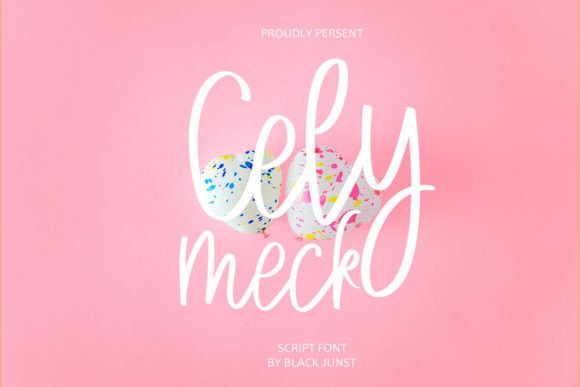
Unleash Your Creativity with Cely Meck: The Script Font That Captivates Hearts
In the realm of visual communication, fonts hold the power to transform ordinary words into captivating expressions of art and emotion. Cely Meck, a remarkable script font created by the visionary minds at Black Junst, stands as a testament to this transformative power. Meticulously crafted with originality and modernity in mind, Cely Meck elevates your design creations to new heights of visual allure.
Immerse yourself in the seductive curves and elegant strokes of Cely Meck, a font that whispers tales of timeless beauty. Its handcrafted essence evokes a sense of authenticity and charm, drawing the beholder into a world of imagination and wonder. Whether you're a seasoned designer seeking to add a touch of sophistication to your projects or a creative enthusiast yearning for a font that speaks to your soul, Cely Meck is your guiding light.
With its comprehensive character set encompassing uppercase, lowercase, numbers, and punctuation, Cely Meck adapts seamlessly to a myriad of design applications. Unleash your boundless creativity as you craft logos that command attention, design social media campaigns that ignite engagement, or create magazine covers and brochures that leave a lasting impression. The versatility of Cely Meck extends even to the world of fashion, adorning t-shirts and apparel with a touch of handwritten elegance.
Experience the limitless possibilities of Cely Meck's open feature, a treasure trove of options that empowers you to weave words together with artistic flair. Explore new horizons of typography as you craft stunning compositions that resonate with your audience, leaving an indelible mark on their hearts and minds.
Cely Meck, more than just a font, is a gateway to a world where creativity flourishes and imaginations soar. Its enchanting curves and captivating aura will transform your designs into masterpieces, captivating your audience with their timeless beauty. Let Cely Meck be your muse, allowing you to weave tales of visual intrigue that linger in the hearts and minds of all who behold them.